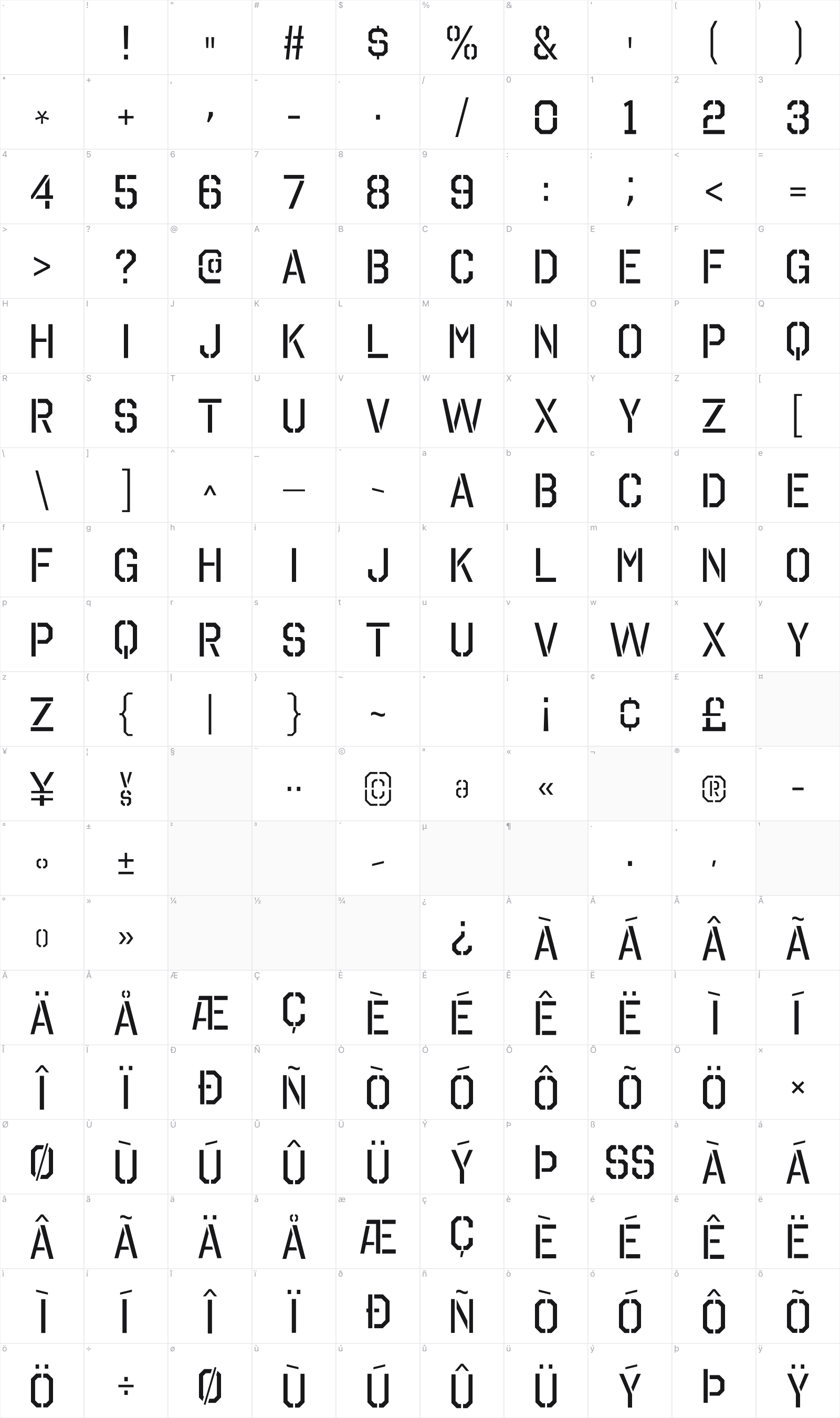
Octin Stencil Free
Octin Stencil Free is a bold, condensed stencil face from Typodermic Fonts with a geometric backbone and a distinctly military feel. The uppercase letterforms are tightly spaced and industrial, with clean stencil breaks that keep things legible even at smaller sizes. Built for headlines, signage, and branding where you want that utilitarian, no-nonsense authority.